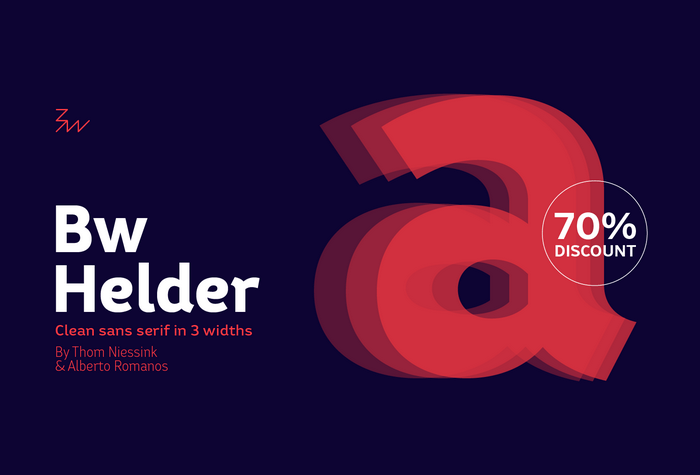
Bw Helder Font Family
Bw Helder Font is a family of fonts with 18 professional fonts. Add it to your fonts collection as it is suitable for many of your work. You have seen many of the author’s fonts that we’ve shared: Bw Gradual, Bw Glenn Sans, Bw Darius. And today I introduce to you Bw Helder Font Family. All those wonderful fonts are designed by Thom Niessink & Alberto Romanos.
Bw Helder is a clean and versatile sans serif combining gentle subtleties on its curves with remarkable spurs branching off its stems. It instills a friendly yet professional tone of voice, while maintaining the composure when used in longer paragraphs at small sizes. Three different widths across six weights provide plenty of options and flexibility for the task at hand.